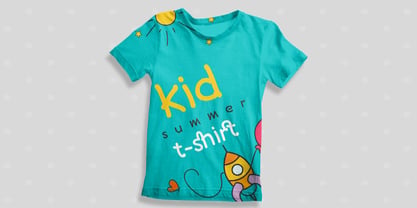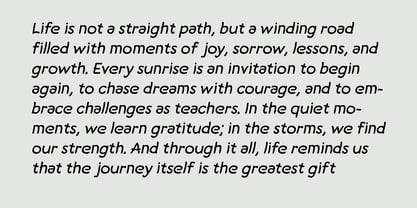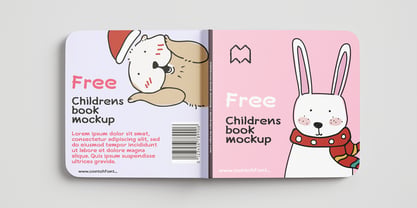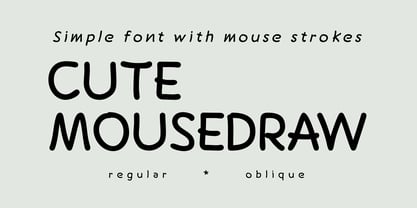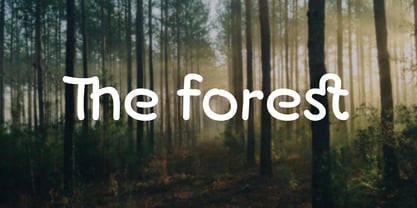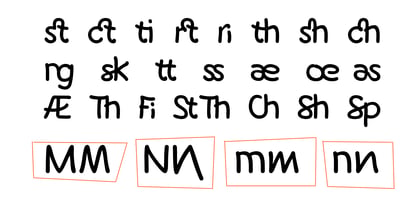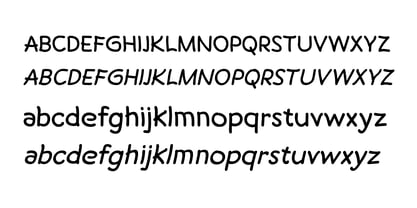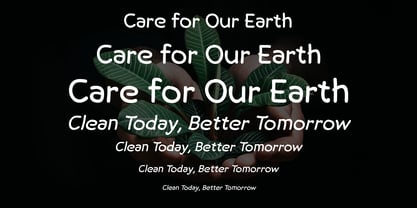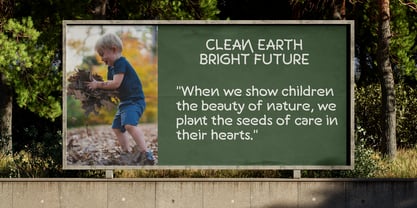
Cute Mousedraw
by EruStudio
The Cute Mousedraw Font Family was designed by Erhan Untoro and published by EruStudio. Cute Mousedraw contains 2 styles and family package options. More about this family
Cute Mousedraw is a charming and playful typeface inspired by hand-drawn mouse strokes, designed to bring warmth and personality to your projects. With its friendly curves and casual style, this font is perfect for children’s books, educational materials, greeting cards, posters, and any design that calls for a joyful and approachable touch. Available in both Regular and Oblique styles, Cute Mousedraw adds a delightful, human feel that makes your message more inviting and memorable.
Whether you are creating school projects, fun branding, or playful social media posts, Cute Mousedraw is your go-to font for spreading cheer and creativity.